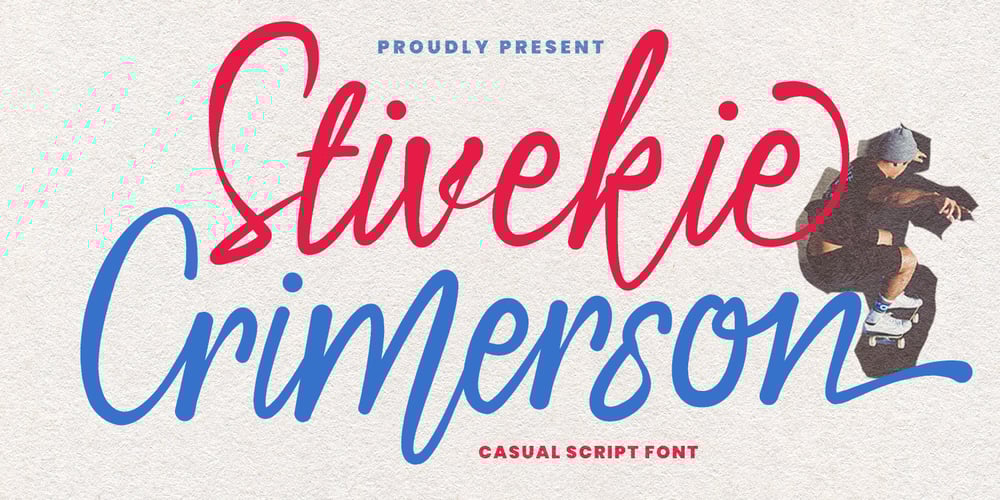
MC Stivekie Crimerson Font Family was designed by Gilang Maulana and published by Maulana Creative. MC Stivekie Crimerson contains 1 styles and family package options. Give your designs an authentic brush handcrafted feel. “Stivekie Crimerson Casual Script Font” is perfectly suited to signature, stationery, logo, typography quotes, website header, branding and more.Thanks for use this font.Maulana Creative